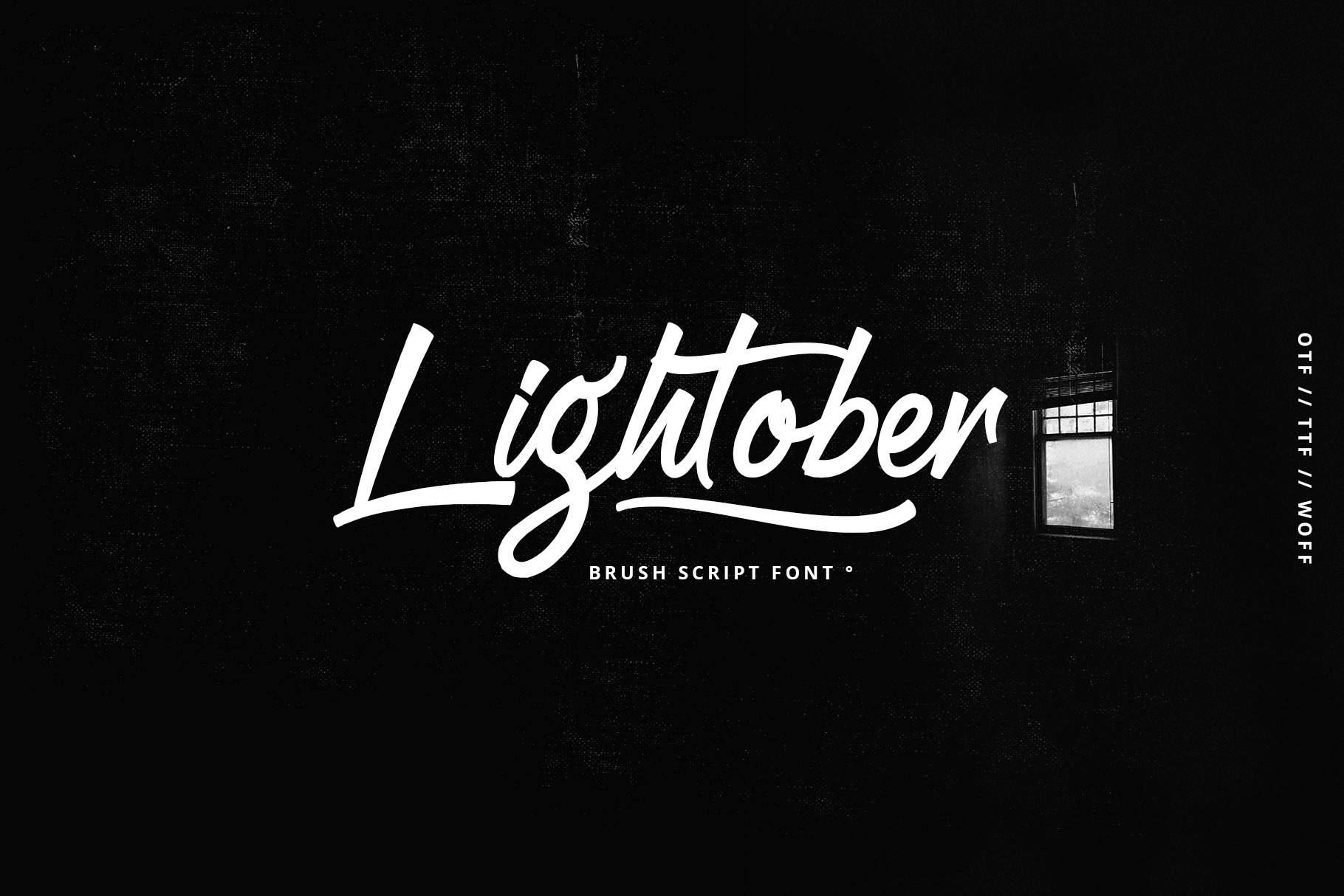
Lightober font
Lightober is a font that is suitable for logos, posters, flyers, cards and others , this font consists of 2 fonts and swash . Each font has: uppercase, lowercase, ligature, alternative, multilingual, etc.